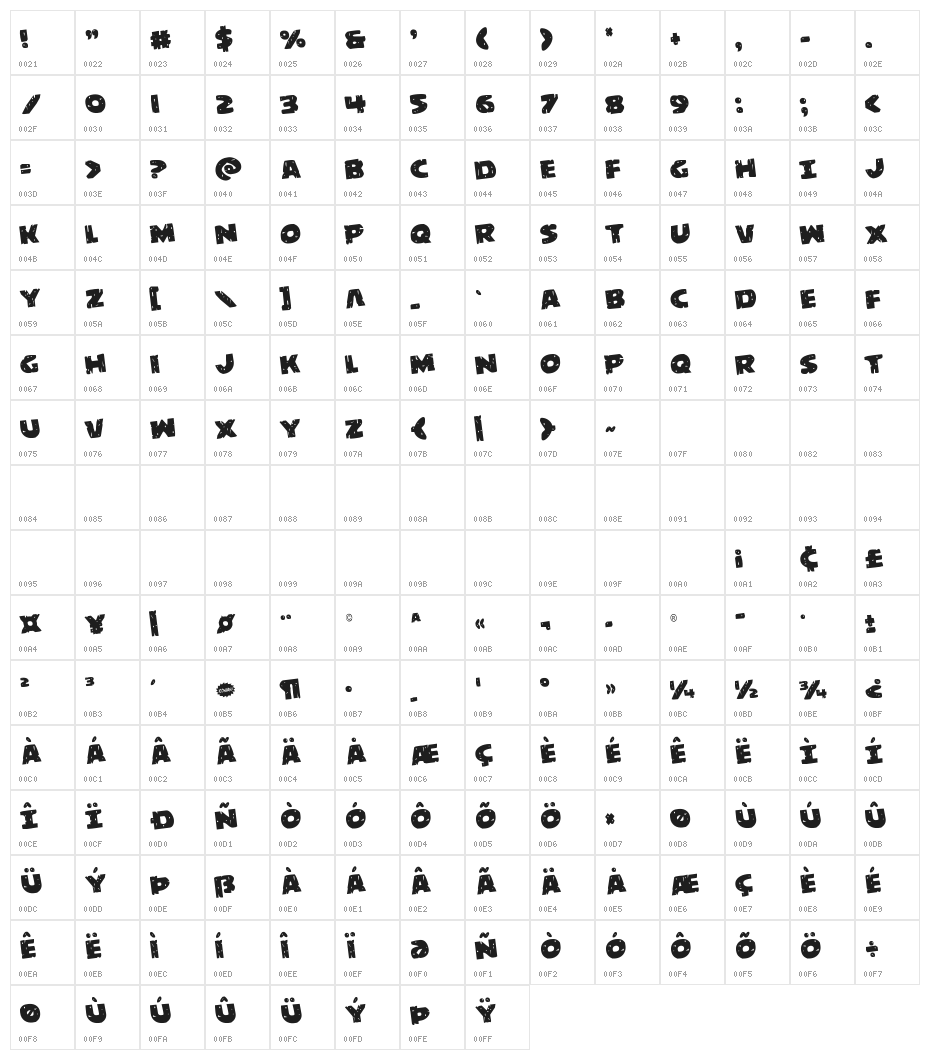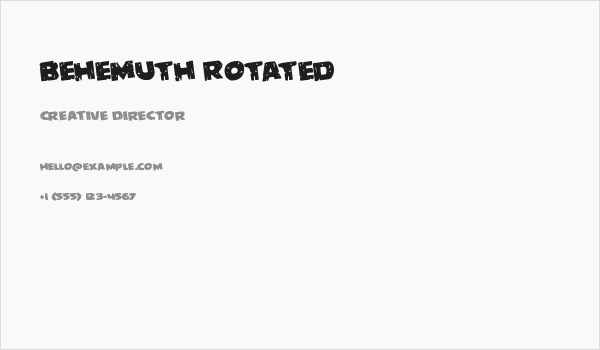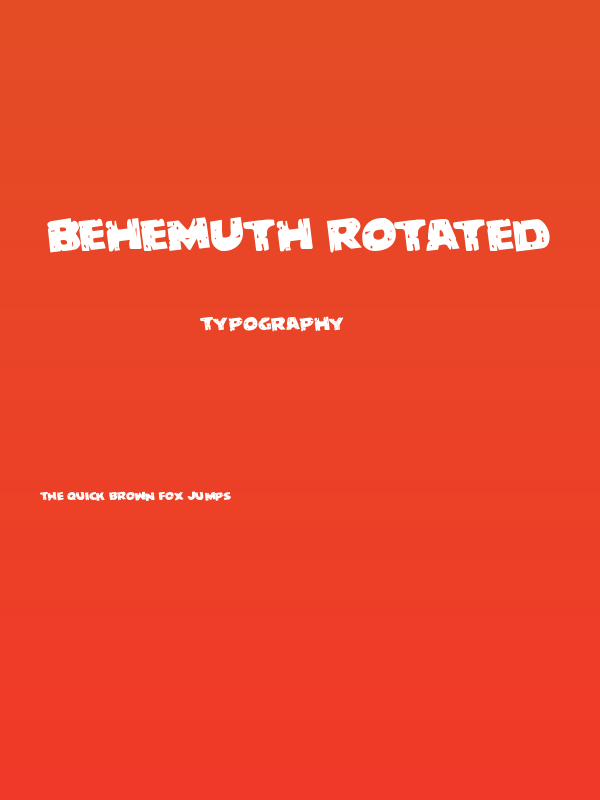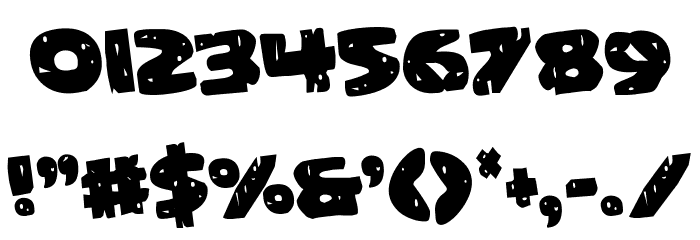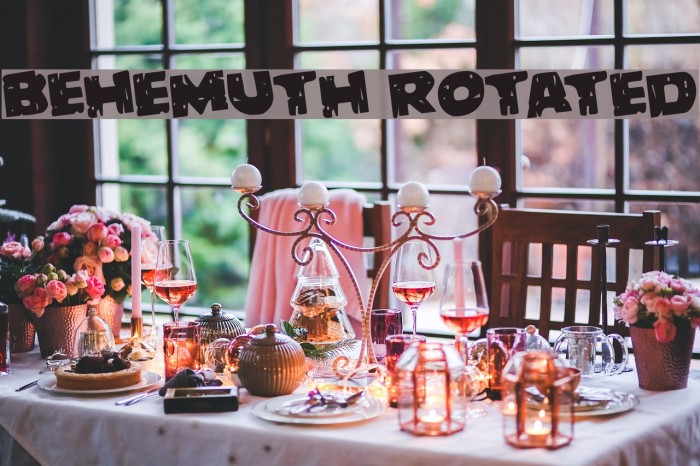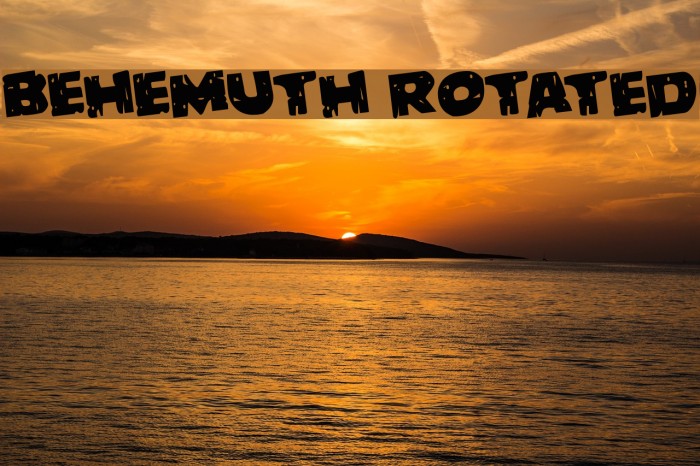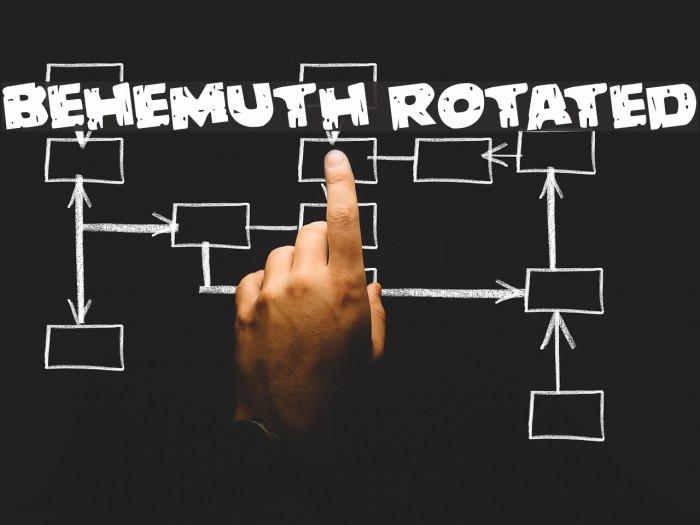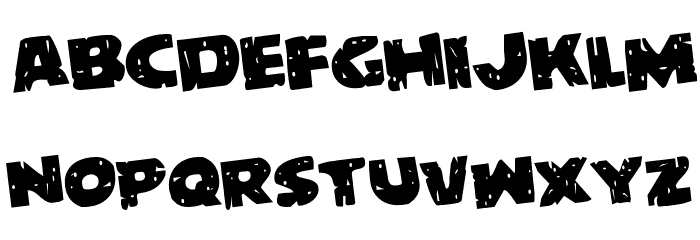
Behemuth Rotated Font
| Estilo general | Playful, Quirky, Bold |
| Proyectos propuestos | Ideal for children's books, comic strips, playful branding, and informal designs. |